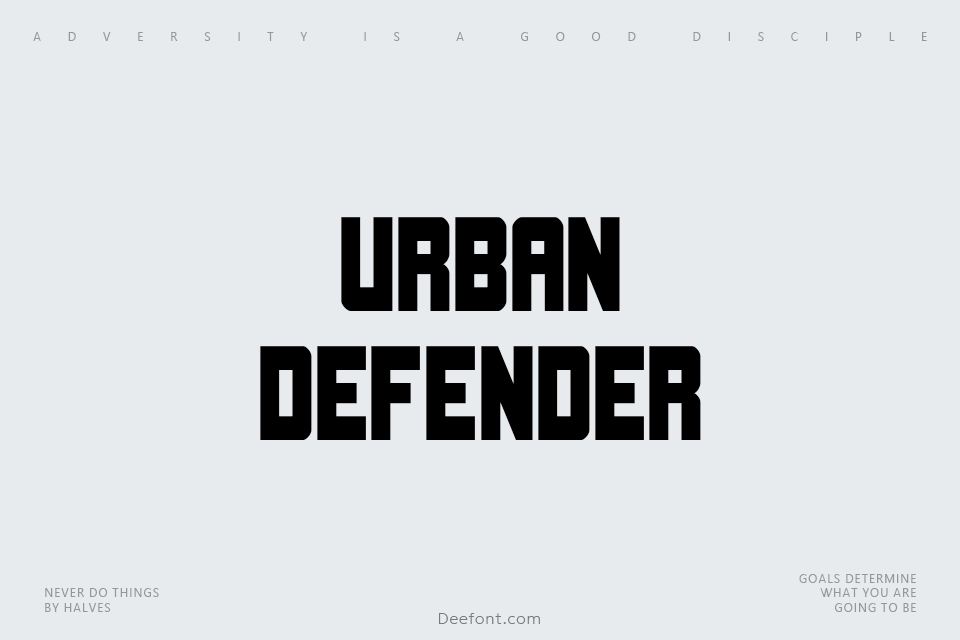
Urban Defender Font
Urban Defender is a bold, geometric sans-serif font featuring multiple dynamic styles with 21 different variations. Designed with sharp angular lines and strong visual impact, this versatile typeface is ideal for headlines, logos, and urban-themed designs. The font family includes regular, italic, condensed, expanded, 3D, gradient, and halftone variations, offering professional typographic flexibility for modern creative projects that demand visual authority and contemporary sophistication.